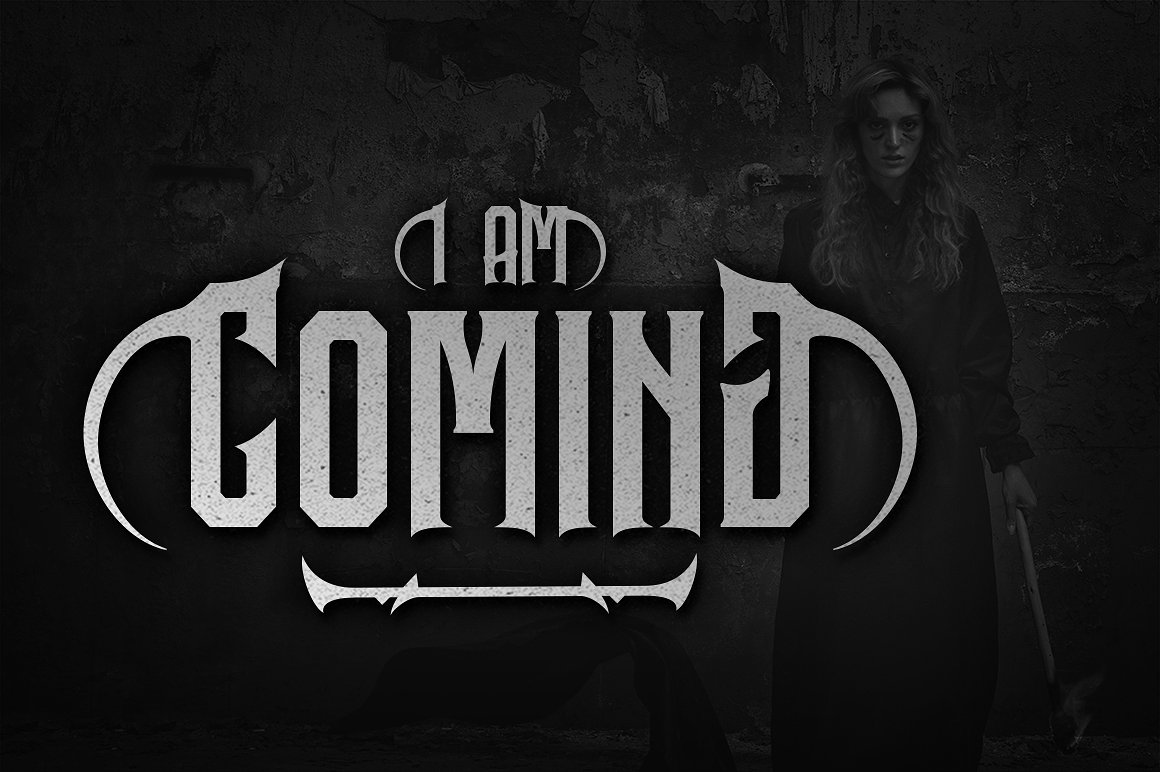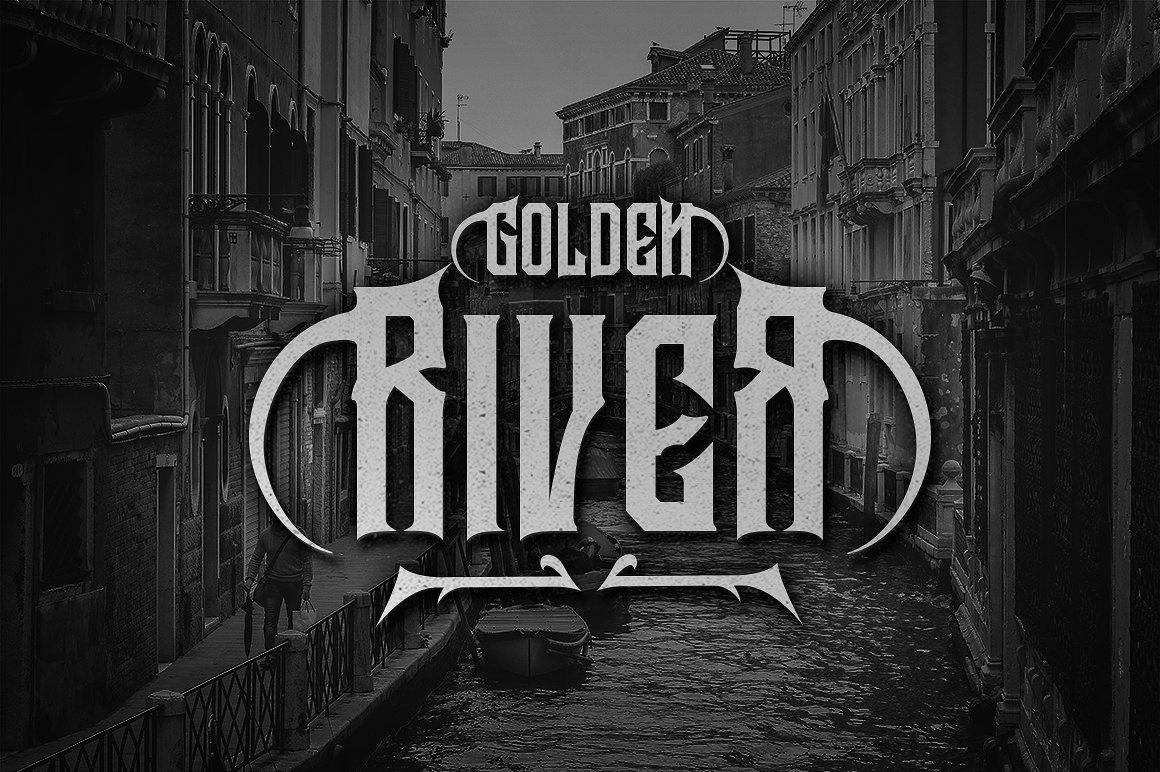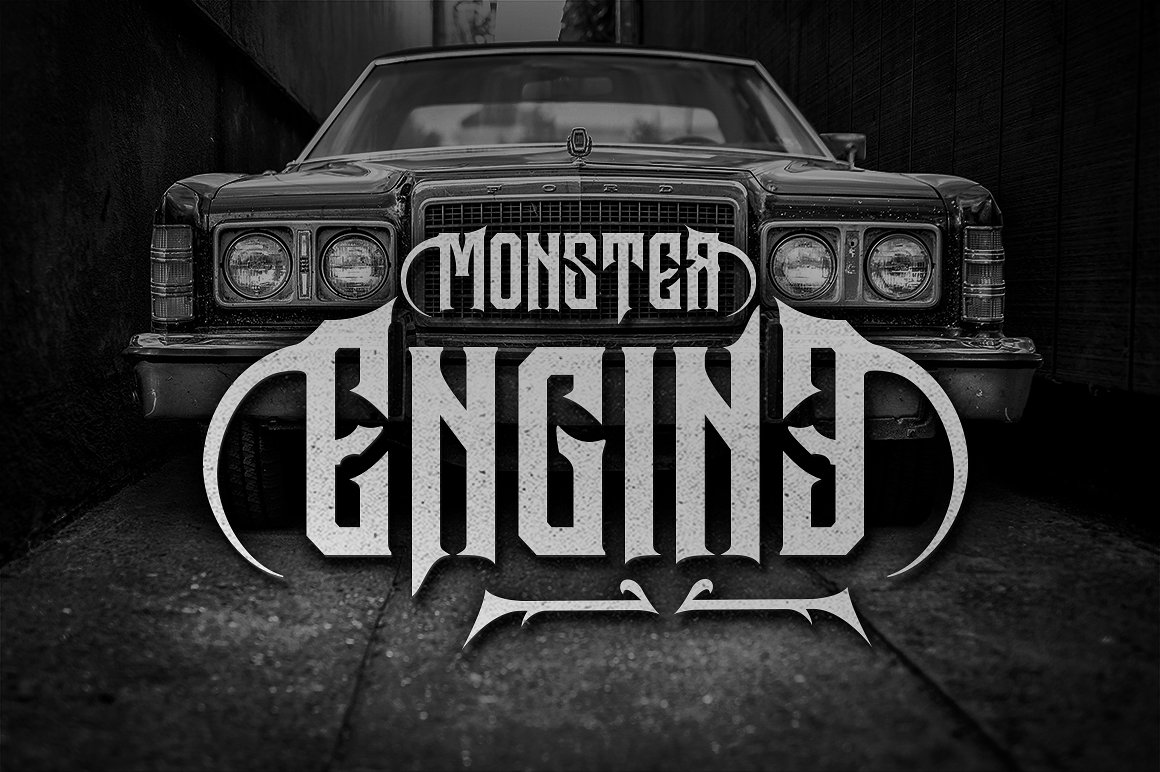
Garreng Typeface
Thank you for looking! Introducing a new decorative serif typeface. bring your design a special look. Introducing Garreng Font! Garreng is a typeface inspired from gothic style. The Garreng typeface includes a full set of uppercase and lowercase letters as well as multi-lingual and currency support, numerals, punctuations, alternates, ligatures and some extra glyphs.